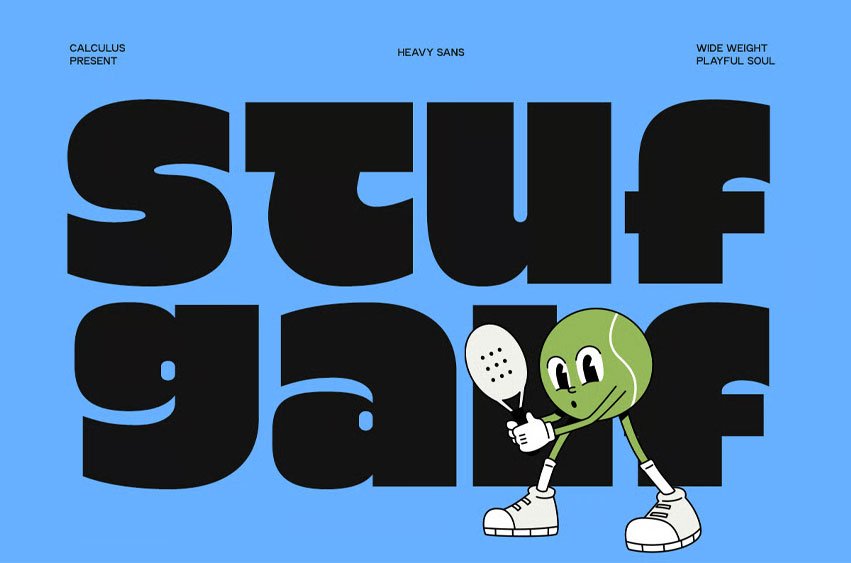
Stuf Galf Font is a bold display typeface designed to deliver a strong visual presence with a playful and expressive attitude. Built with chunky forms, smooth curves, and a distinctive character, Stuf Galf brings a unique balance between bold impact and friendly personality.
With its rounded shapes and solid construction, CC Stuf Galf creates a lively and eye-catching typographic voice. The thick strokes and soft edges enhance its approachable feel, while its bold structure ensures high visibility—making it perfect for standout headline compositions.
Carefully crafted for modern creative use, CC Stuf Galf performs exceptionally well across branding, posters, editorial headlines, packaging, and digital interfaces. Its expressive letterforms allow designers to create visuals that feel dynamic, fun, and memorable without losing clarity.
The combination of strong display presence, playful curves, and contemporary construction makes Stuf Galf ideal for projects that aim to be bold, engaging, and full of character.
- Bold Display Style
- Playful and Expressive Character
- Strong Visual Presence
- Smooth Curves & Chunky Shapes
- Clean Contemporary Construction
- Ideal for Headlines & Large Typography
- Distinctive and Memorable Appearance
CC Stuf Galf delivers bold personality — a playful display typeface crafted to make your designs stand out with confidence and character.